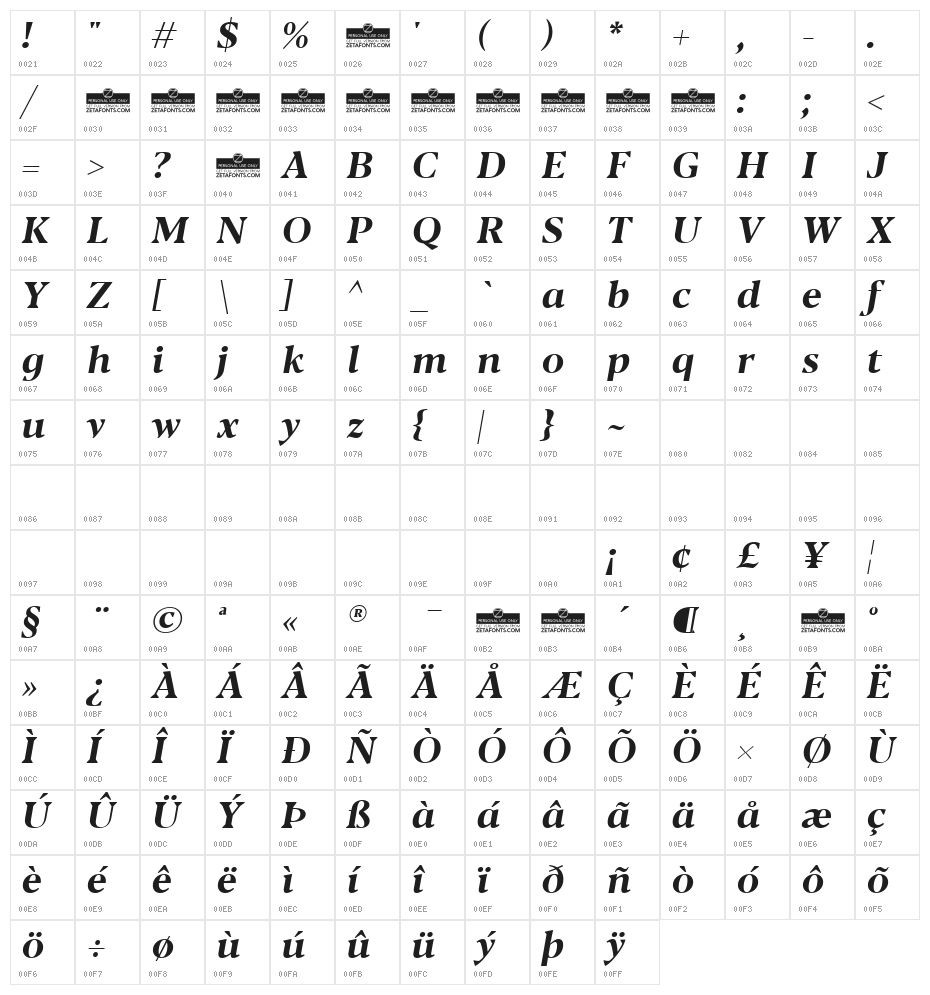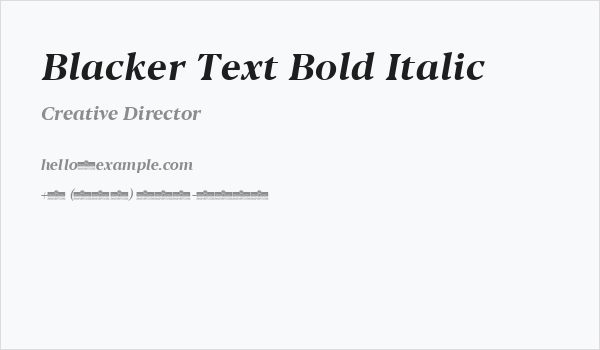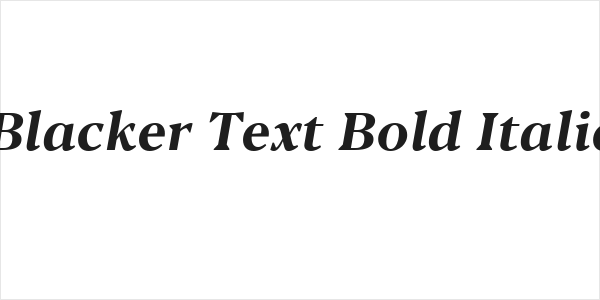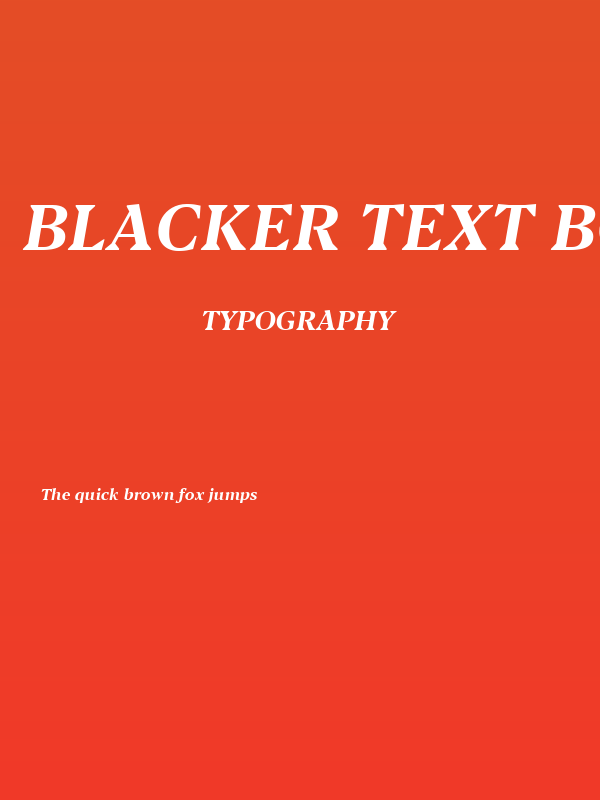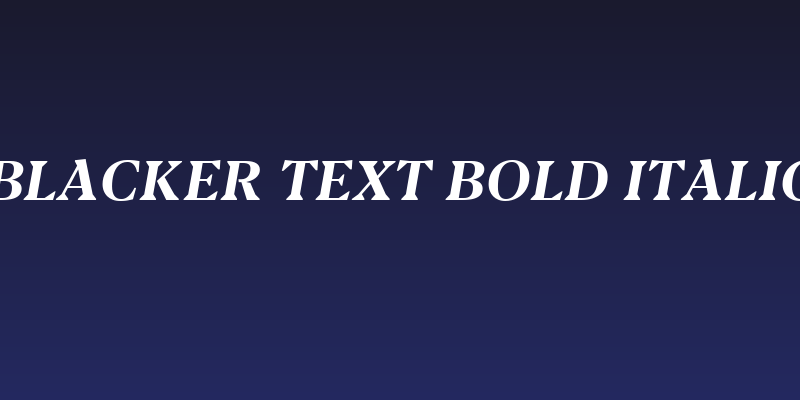
Blacker Text Bold Italic Font
Blacker Text Bold Italic Description
This typeface exhibits a bold and italicized style, characterized by its strong and assertive presence. The letters are slightly slanted, adding a dynamic and elegant touch to the overall appearance. The strokes are thick and consistent, providing a robust and impactful look. The serif elements are pronounced, contributing to a classic yet modern aesthetic. The font maintains a balanced proportion between the height and width of the characters, ensuring readability and visual appeal. The spacing between characters is normal, allowing for clear legibility without appearing cramped or overly spaced.